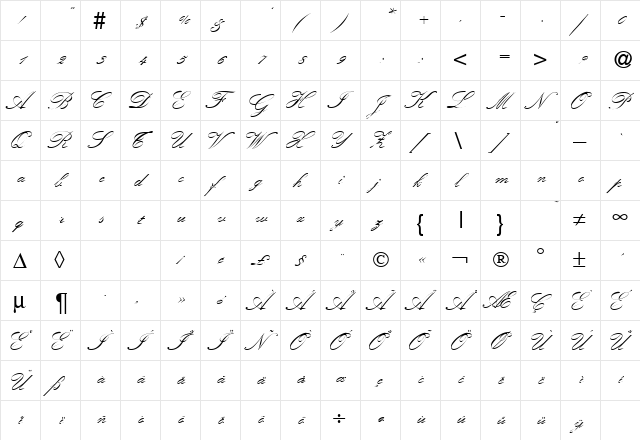
KremlinScriptTwo DB Regular
Design Context for KremlinScriptTwo DB Typeface
KremlinScriptTwo DB flows with the natural rhythm of handwritten lettering, making it ideal for designs that call for warmth and personal expression.
Font Pairing: Combine KremlinScriptTwo DB with a simple geometric sans for maximum contrast — the tension between flowing curves and clean structure is a classic typographic pairing.
Pro Tip: Pair KremlinScriptTwo DB with a clean sans-serif for supporting text. The contrast between fluid script and geometric structure creates an elegant typographic hierarchy.